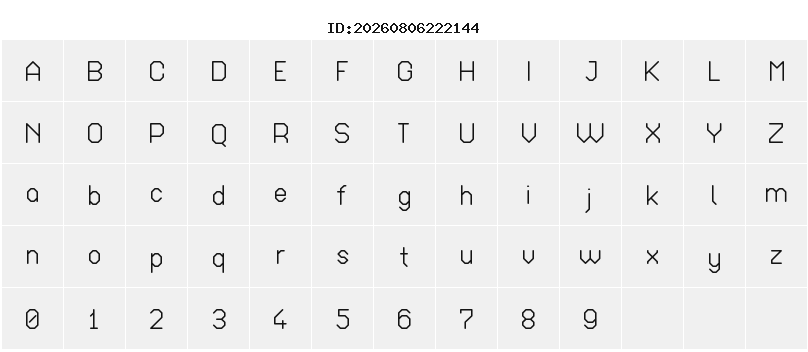
Octagonal Preview
• Font Name: Octagonal
• Full Font Name: Octagonal Bold
• Version: Version 0.17 March 7, 2015
• Designer: Vít Čondák
About Octagonal.ttf
Octagonal.ttf is a modern, elegant sans-serif font designed for ultimate readability and visual harmony. Perfect for branding, headlines, web design, and print materials.